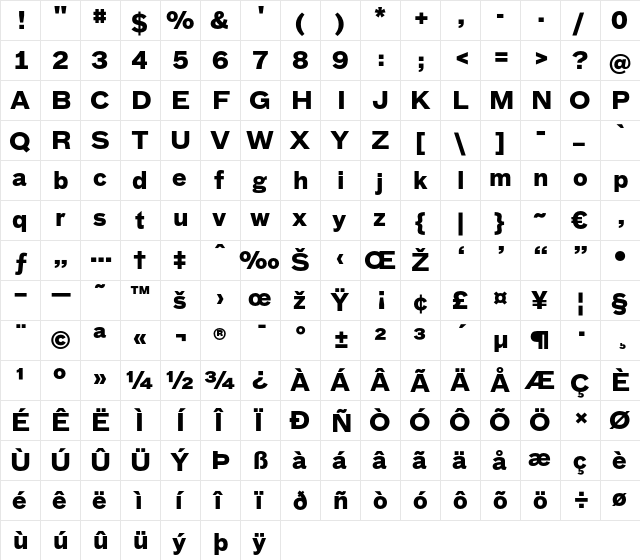
BauTF-Bold Regular Font Preview
BauTF-Bold Regular
Design Context for BauTF-Bold Typeface
BauTF-Bold offers clean, dependable letterforms without strong stylistic allegiance, making it a practical choice for designers who need flexibility. Its bold stroke weight gives it real presence on the page.
Pro Tip: Pair BauTF-Bold with a font of contrasting weight or personality to build a more expressive typographic hierarchy.